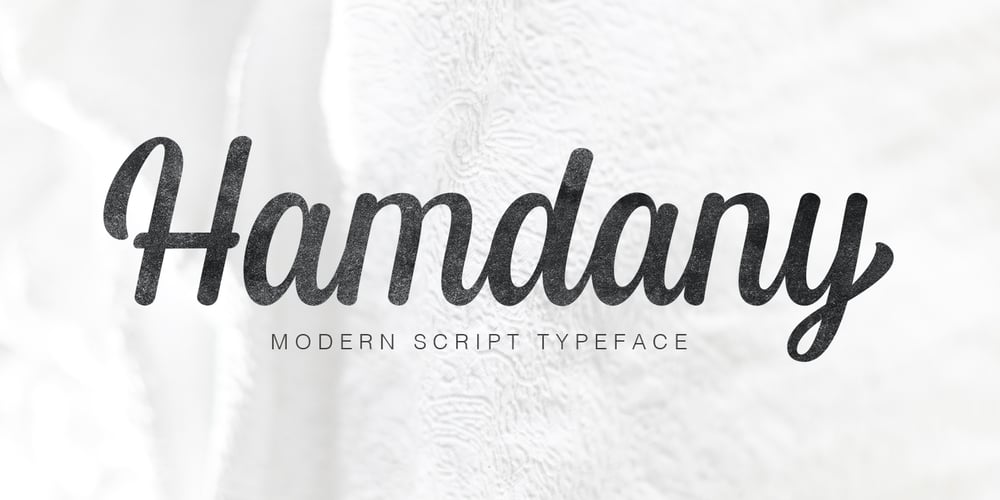
Hamdany
Hamdany font
Hamdany Font Family was designed by Fajar Gunawan and published by Fargun Studio. Hamdany contains 1 styles and family package options. Hamdany is modern script typeface that perfect for photography, branding, signature. It is so beautiful and classy for your projects.This Font has given PUA code (specially coded fonts). So that all the alternate characters can easily be accessed in full by a craftsman or designer.